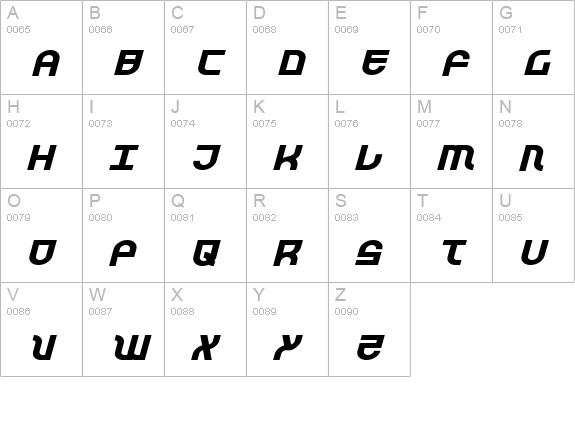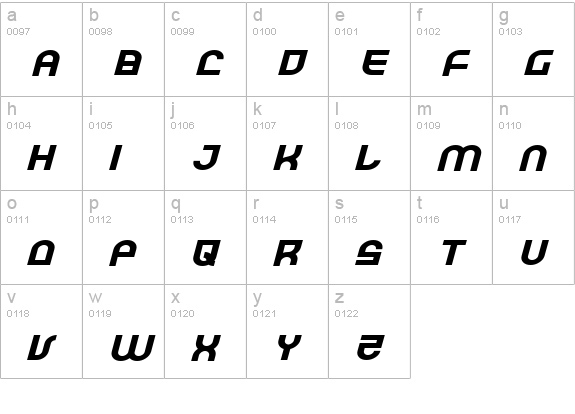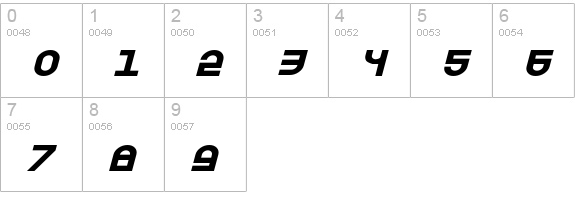
Trek Trooper Expanded Italic is a distinctive, extended-width, italic variant in the Trek typeface family \xE2\x80\x94 well suited to design and typography projects.
Introducing Trek Trooper Expanded Italic font, a bold and dynamic typeface designed for those who seek to make a statement with their words. This font exudes strength and modernity, making it perfect for titles, headlines, and branding projects that demand attention. With its sleek and futuristic design, Trek Trooper Expanded Italic font is sure to captivate and engage your audience. The italicized version adds a touch of sophistication and flair, making your text stand out even more. Best of all, Trek Trooper Expanded Italic font is available for free download at FontsMarket.com. So whether you're a designer looking to add a unique touch to your projects or a creative looking to spice up your personal branding, this font is the perfect choice. Download now and let your words boldly go where no font has gone before.